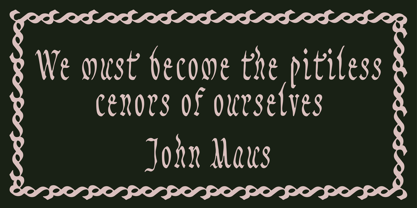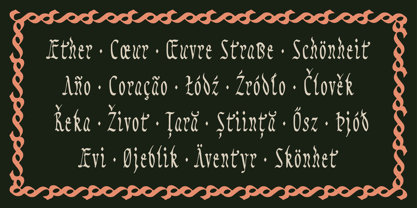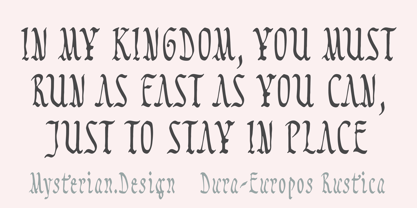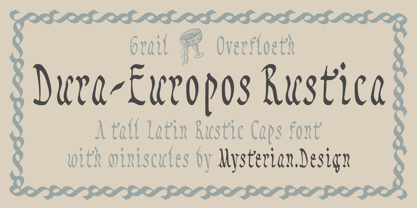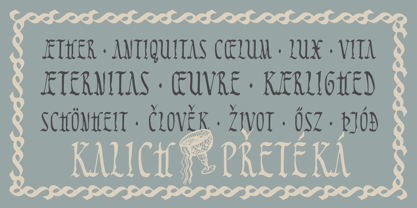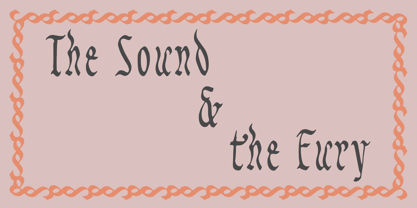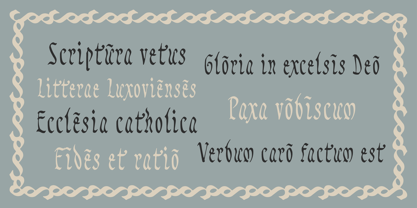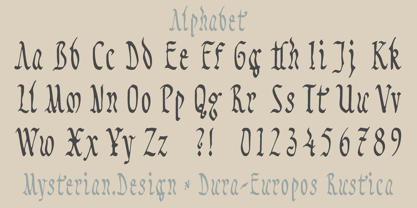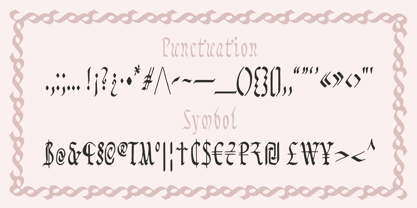
Dura Europos Rustica
Dura-Europos Rustica is an expressive display typeface inspired by the ancient Roman tradition of Capitalis Rustica—the elegant, narrow, and arcane script used for literary texts and inscriptions throughout Late Antiquity.
Drawing from the irregularity of hand-written Roman capitals, Dura-Europos Rustica combines sharp strokes, distinctive proportions, and subtle variations to create a typeface that feels archaeological without becoming purely historical. Its weathered, calligraphic character makes it especially suited to editorial illustration, posters, book covers, album artwork, branding, packaging, titles, and projects seeking an ancient or classical atmosphere.
The font includes an expanded set of Latin characters with diacritic support, allowing the typeface to be used across a broad range of European languages. Carefully constructed letterforms retain the distinctive rhythm and personality of the original Roman-inspired design while providing practical contemporary typography.
Features
• Roman Rustic-inspired display typeface
• Hand-drawn, archaeological character
• Expanded Latin character set
• Latin diacritic extensions
• Designed for expressive headlines and display typography